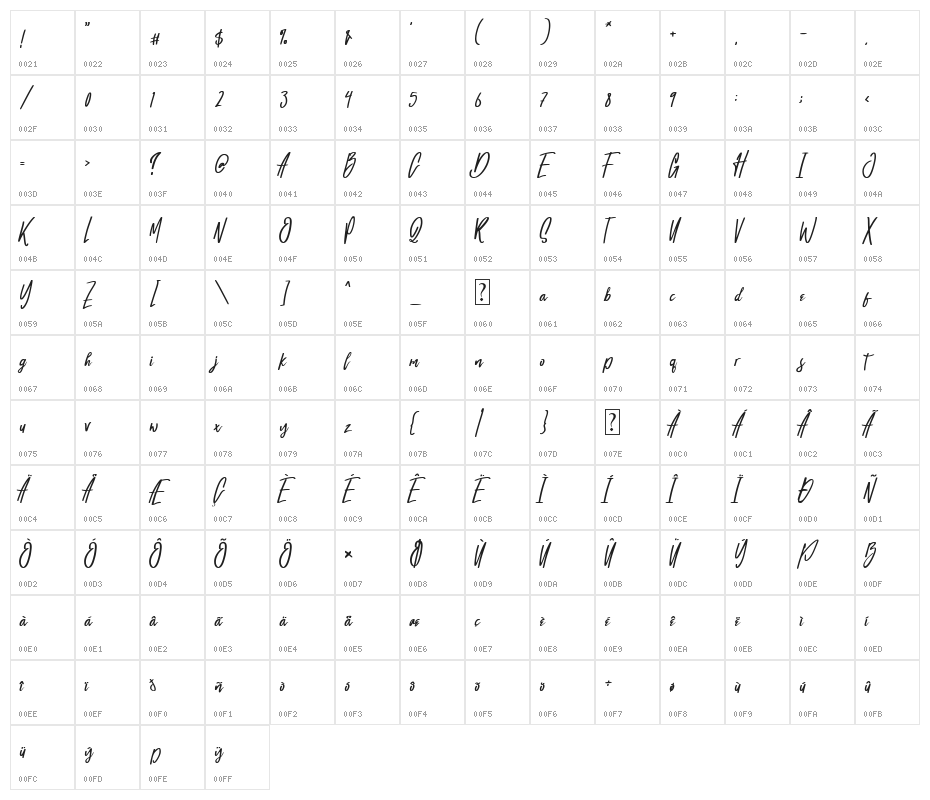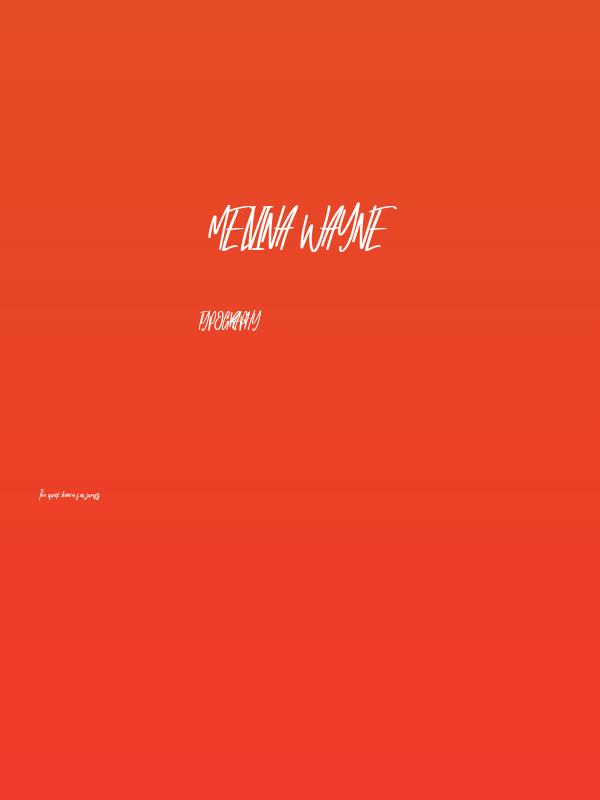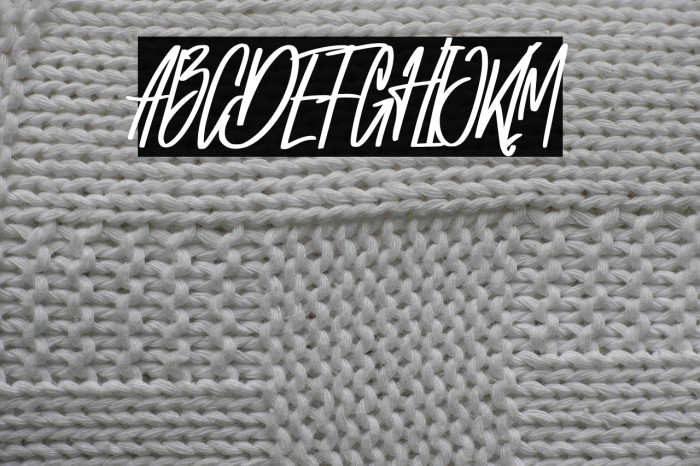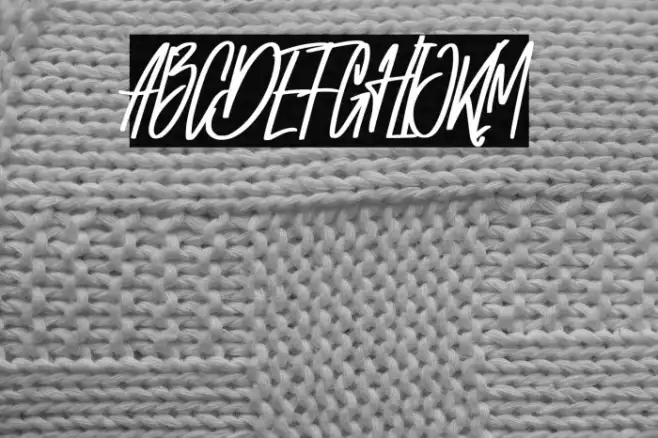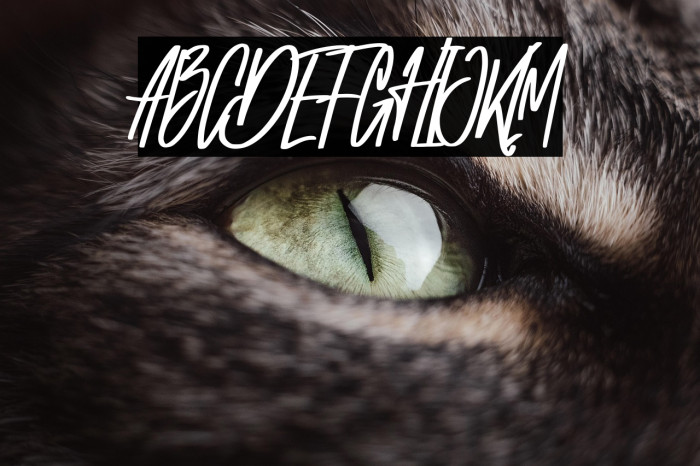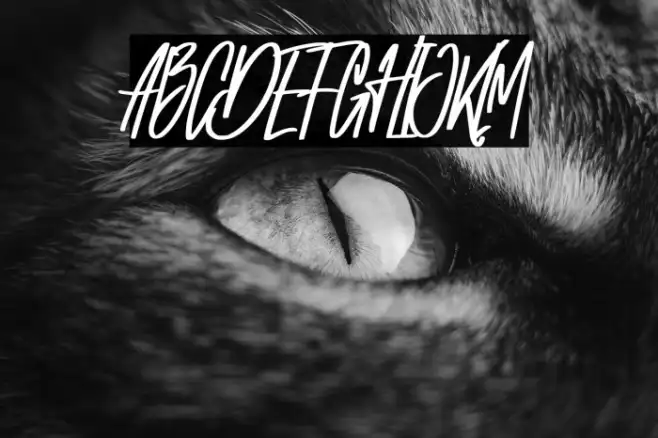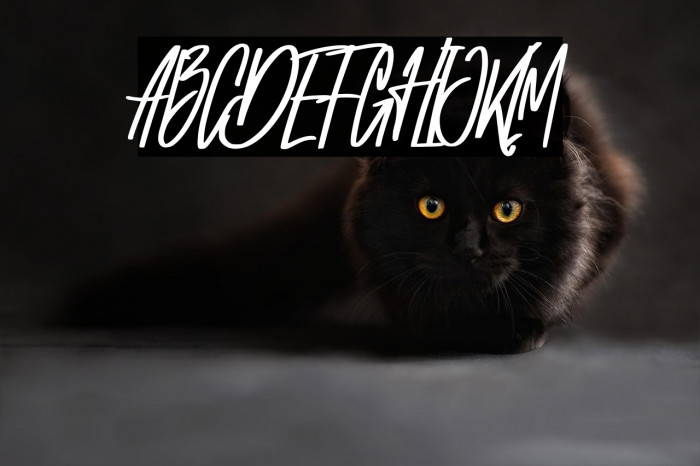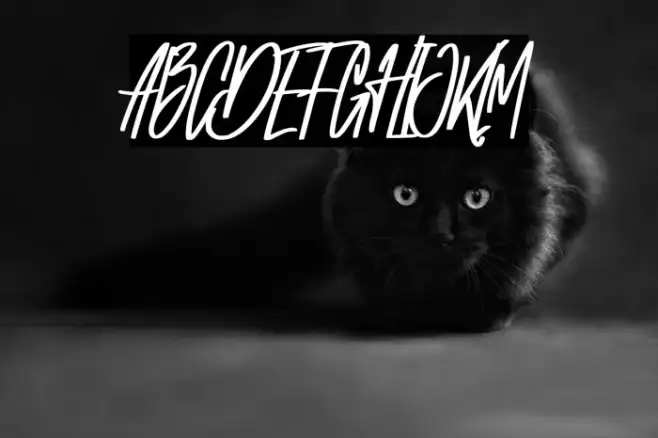
Melvina Wayne Font
Melvina Wayne Description
This font exudes a dynamic and energetic vibe with its bold, flowing script style. The characters are designed with a sense of movement, featuring elongated strokes and a slight slant that adds to its lively appearance. The uppercase letters are particularly striking, with exaggerated loops and curves that give them a distinctive flair. The lowercase letters maintain a cohesive look, with smooth connections between characters that enhance readability. Numbers and special characters are crafted with the same attention to detail, ensuring consistency across all elements. This font is perfect for projects that require a touch of elegance and personality.
| Proposed Projects | Ideal for branding, invitations, greeting cards, and creative headlines. |